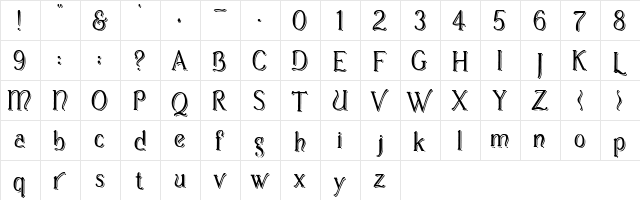
Casua_Shopsign Regular
Design Context for Casua_Shopsign Typeface
Casua_Shopsign is a composed and adaptable typeface that performs quietly and consistently across a wide range of design contexts.